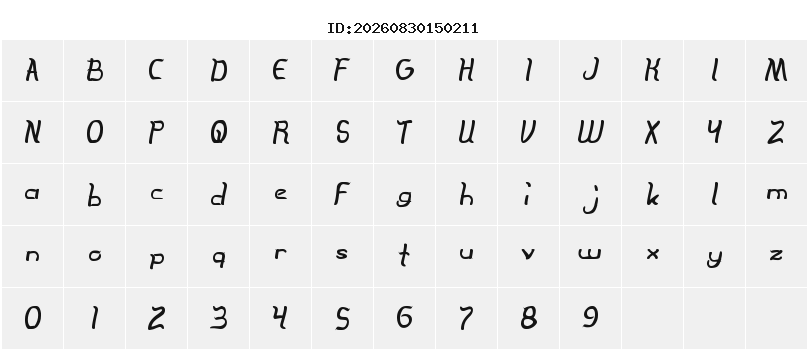
The Innocent Face Preview
• Font Name: The Innocent Face
About The Innocent Face.ttf
The Innocent Face.ttf is a modern, elegant sans-serif font designed for ultimate readability and visual harmony. Perfect for branding, headlines, web design, and print materials.